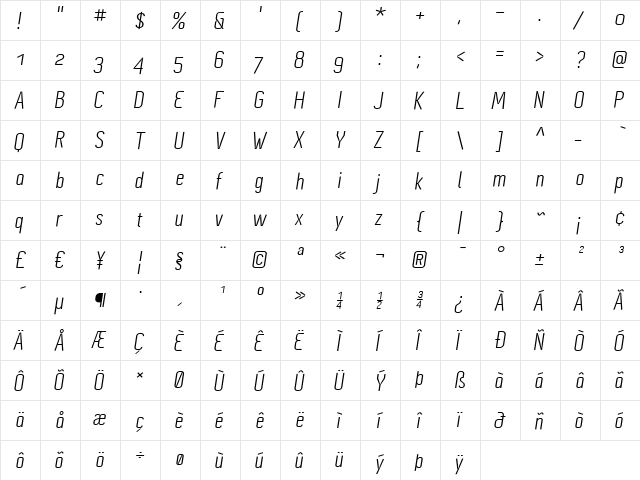
Cynapse Pro OSF Italic
| Foundry | Neil Summerour/Positype |
| Designer | Neil Summerour/Positype |
Design Context for Cynapse Pro OSF Typeface
Cynapse Pro OSF offers clean, dependable letterforms without strong stylistic allegiance, making it a practical choice for designers who need flexibility. The slanted form adds forward momentum and visual energy.
Pro Tip: Try Cynapse Pro OSF for annotation and caption copy alongside an upright companion — the contrast in angle creates a dynamic but ordered typographic system.